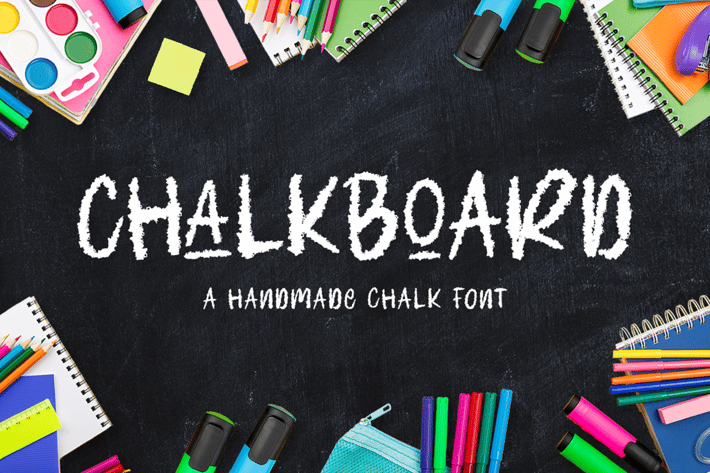
Chalk Font
Have you been looking for a chalk font? Do you dream of creating headings that stand out and inspire creativity, imagination, and endless fun? Then we’ve got just the font for you!
Introducing Chalkboard - A Handmade Chalk Font
If you’re hosting a halloween, birthday or costume party, or need a versatile font for printed materials - then Chalkboard is exactly what you need!
This bold, fun, and stylish font can be used for a host of different content needs and projects. Create gorgeous party invitations, printed quotes, standout packaging, or beautiful t-shirts! You can even use it to create amazing headings, logos, menus, and social media graphics.
Chalkboard includes multilingual options, as well as stylistic and ligature support.
Inspire your audience, clients, or guests with this beautiful, statement font.
Multilingual, Stylistic & Ligature Support
Full sets of Punctuation and Numerals